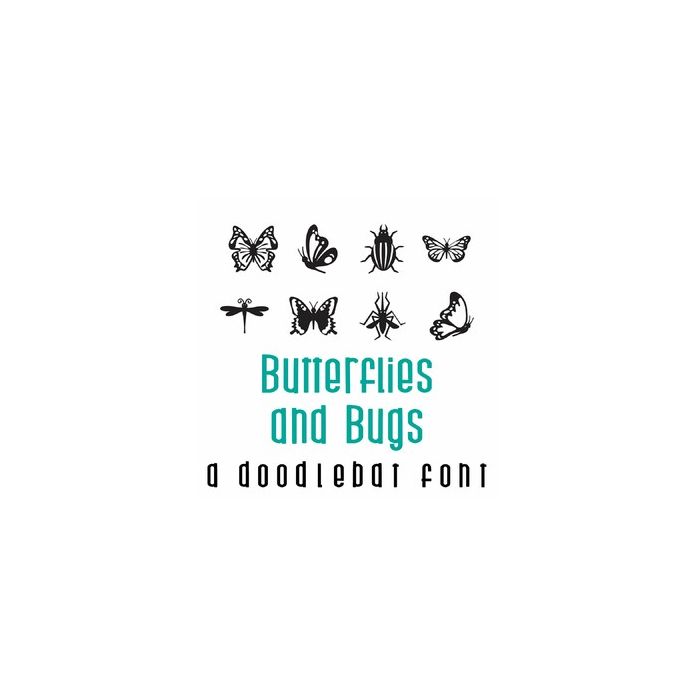
Butterflies and Bugs Doodlebat Font
This fun doodlebat font features 26 butterflies and bugs. Perfect for cards, crafts, gifts, decor, scrap book pages, planner stickers and more!